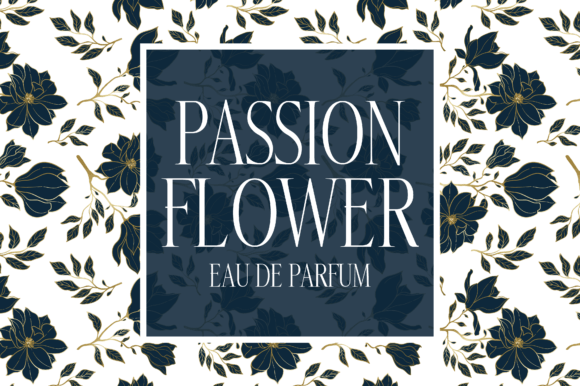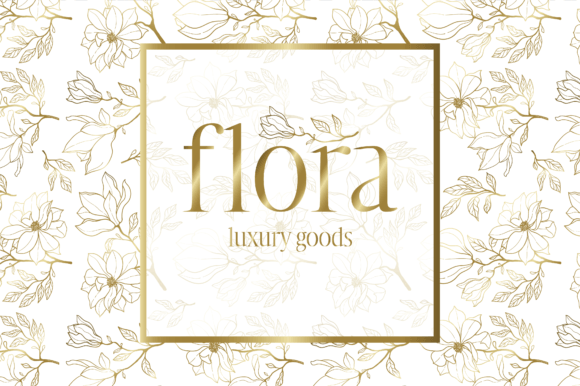
The Elegant Solution: Unpacking the Eleganza Font
I still remember the design project that led me to discover the Eleganza font. I was working on a luxury brand’s brochure, and my client was adamant about finding a typeface that exuded sophistication and elegance. After hours of scouring through font libraries, I stumbled upon Eleganza, and it was love at first sight! ✨ The contrast between its glyphs’ bodies and serifs was exactly what I needed to elevate the brand’s visual identity.
The Good: What I Love About Eleganza
- ✨ Elegant and luxurious feel: Eleganza’s sharp serifs and tall, delicate aspects make it perfect for high-end branding and designs.
- ✅ Versatile: This font works well for both headings and body text, making it a great addition to any design project.
- 💡 Unique character: Eleganza’s distinctive features set it apart from other serif fonts, giving your designs a touch of sophistication.
The Not-So-Good: Small Quirks and Limitations
While Eleganza is an excellent font, it’s not without its quirks. ⚠️ Some users may find that the font’s tall, delicate aspects can make it difficult to read in smaller sizes. Additionally, the font’s minimalist touch may not be suitable for designs that require a more ornate or decorative feel.
For instance, I once used Eleganza for a client’s wedding invitation design. While it looked stunning in the headings, I had to adjust the font size and style for the body text to ensure it was legible. 🤔
- Experiment with Eleganza’s OpenType features, such as stylistic alternates, to add visual interest to your text.
- Explore Eleganza’s glyphs, stylistic alternates, and other OpenType features to enhance your typography.
The Story Behind Eleganza: Designer Inspiration
Eleganza was designed with the goal of creating a luxurious, elegant typeface that balances contrast and minimalism. The designer’s inspiration came from classic serif fonts, with a modern twist. The result is a font that exudes sophistication and elegance, making it perfect for high-end branding and designs.
| Font Name | Eleganza Font |
| Author | Minimalistartstudio |
| What is the best use for Eleganza font? | Eleganza is ideal for high-end branding, luxury goods, and designs that require an elegant, sophisticated feel. |
| Is Eleganza suitable for body text? | Yes, Eleganza can be used for body text, but it’s recommended to use a larger font size to ensure readability. |
| Does Eleganza have OpenType features? | Yes, Eleganza has OpenType features, including stylistic alternates and glyphs, which can be accessed in compatible design applications. |